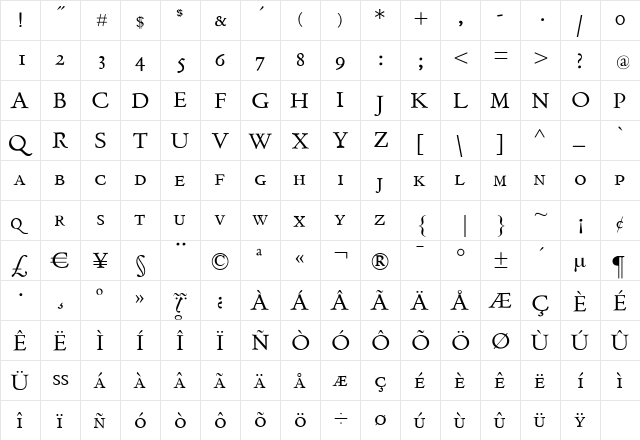
GriffosSCapsFont Regular
Design Context for GriffosSCapsFont Typeface
GriffosSCapsFont takes a measured approach to typography — its balanced proportions and neutral character make it a reliable workhorse for both digital and print work.
Pro Tip: Use GriffosSCapsFont in both headline and body roles to test its range before committing to a single application.